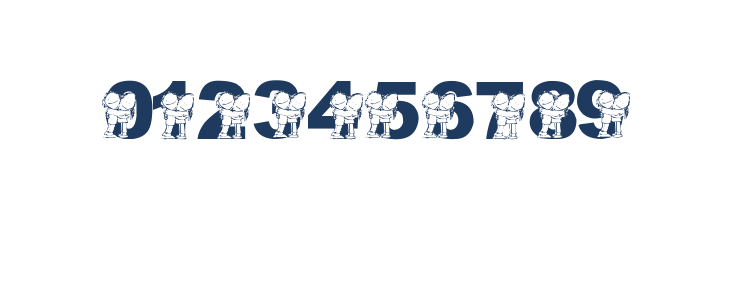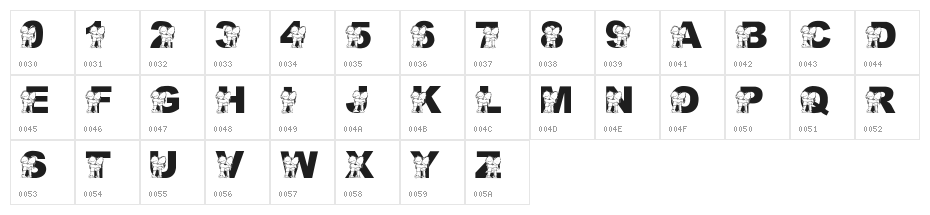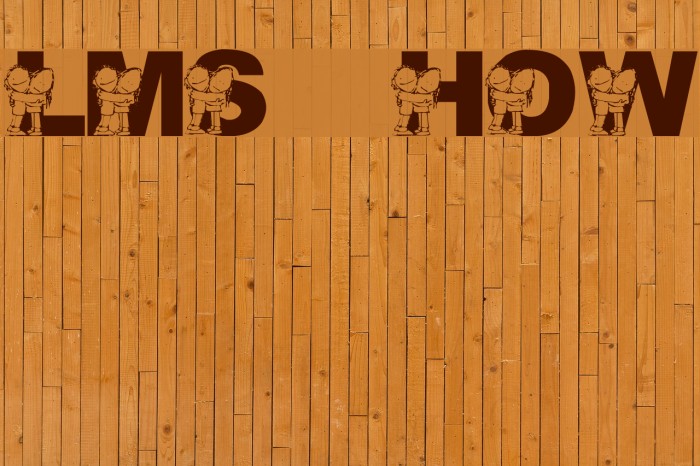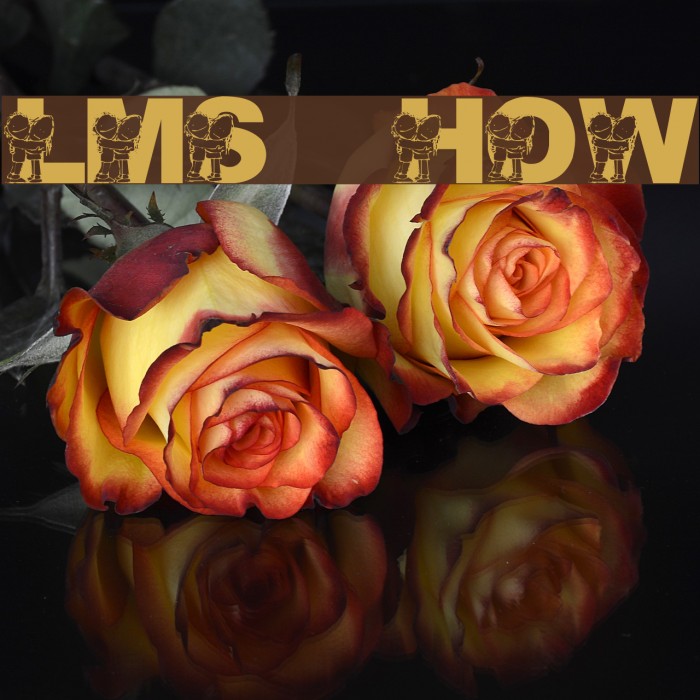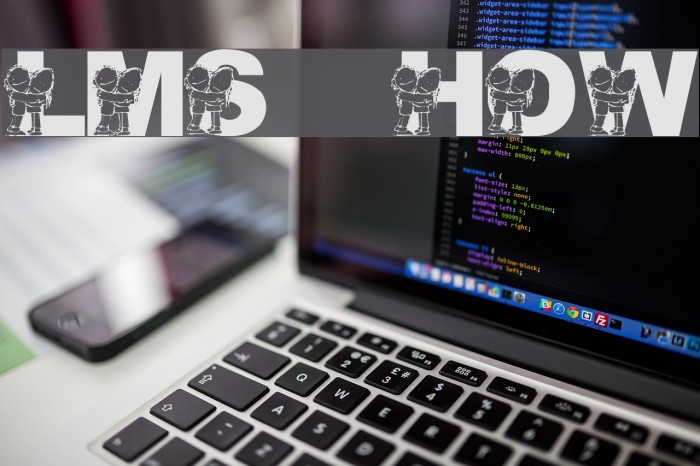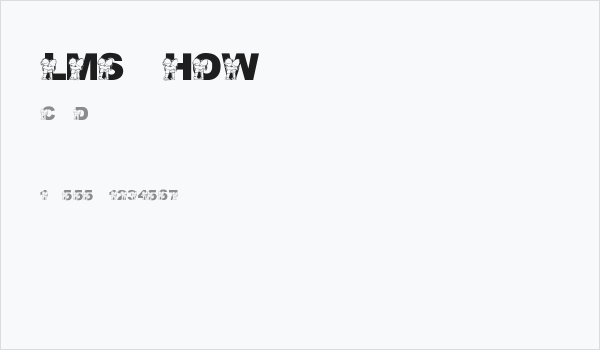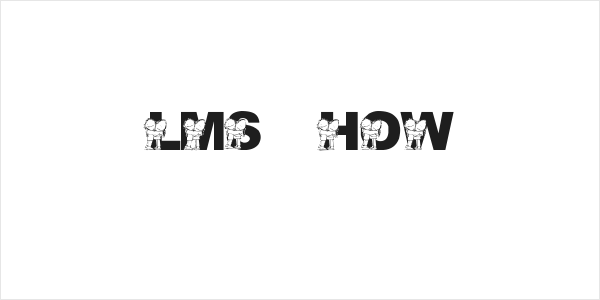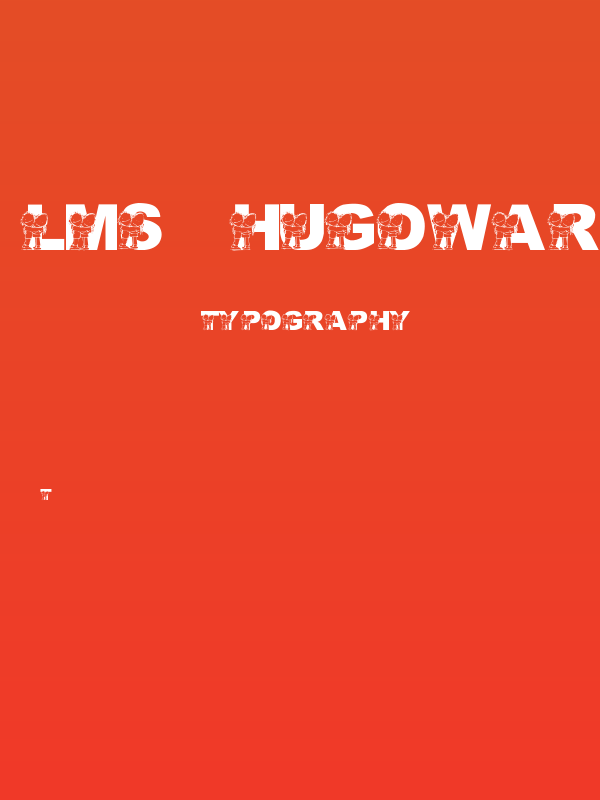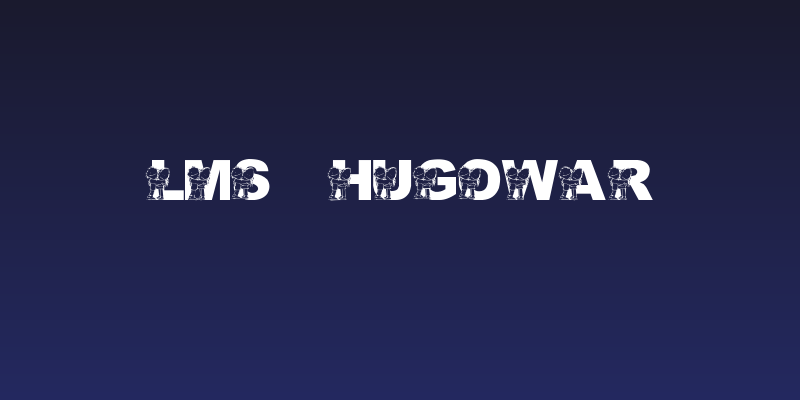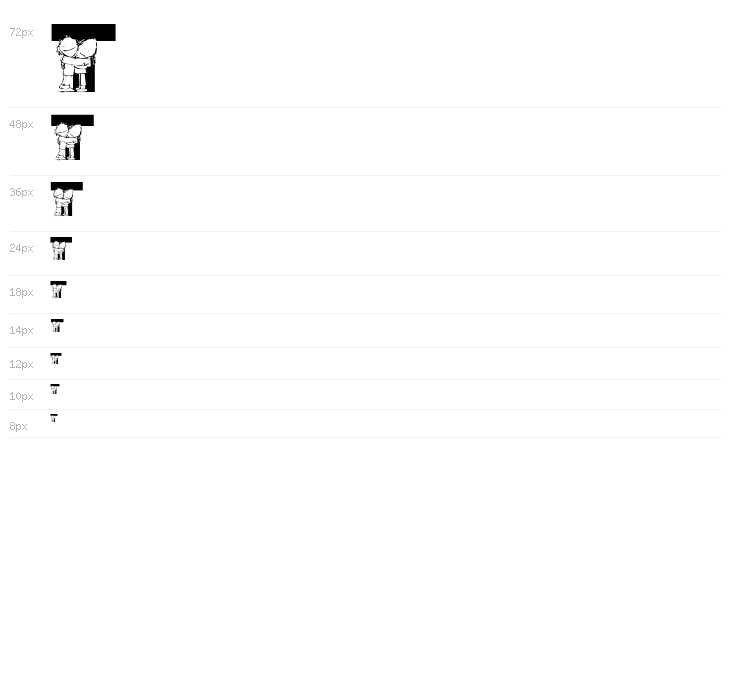
LMS Hug-O-War Font
LMS Hug-O-War Description
This playful and whimsical font features bold, uppercase letters with charming illustrations of hugging characters integrated into each letterform. The characters add a unique and friendly touch, making the font ideal for projects that require a fun and engaging aesthetic. The font maintains a consistent weight and width, ensuring readability while still offering a decorative flair. The combination of bold typography and delightful illustrations makes it stand out, perfect for creative and lighthearted designs.
Proposed ProjectsIdeal for children's books, playful posters, greeting cards, and any project needing a whimsical touch.